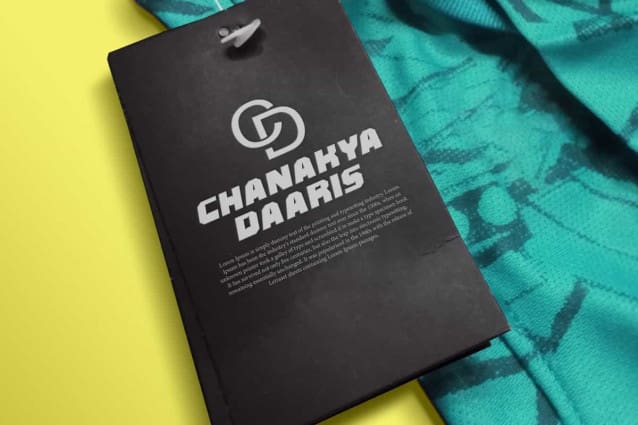
Tough Rival Font
Tough Rival Font is a gaming retro inspired and racing display font. This font has bold letter characters and unique shapes that will suits many designs, such as business card, custom design, invitation, label, poster, product packaging, quotes, screen print, signage, stationery, website, and more!
Tough Rival Font includes full set of ALL CAPS for Uppercase and Lowercase Basic Characters, Numerals, Punctuation and Symbol. This stylish font can make your design more attractive and will be suitable for many industries, such as accessories, advertising, automotive, event or festival, fashion, furniture, game, movie, photography, sports, etc.